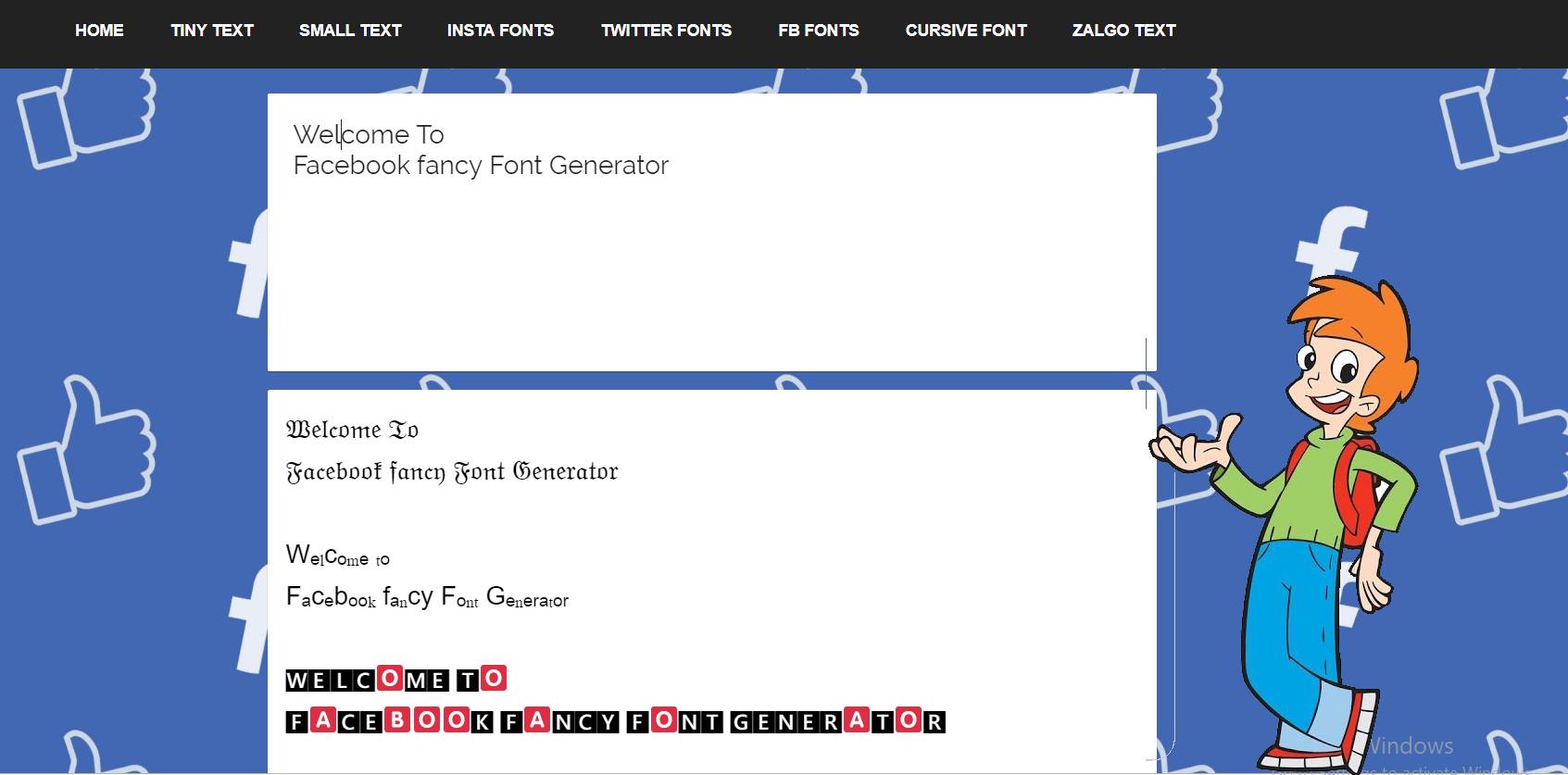
Fancy Font Generator Cursive
Despite the fact that in todays era there are so many different fonts that are used in typing as well as in handwriting to make texts more readable and notable but cursive fonts still carry a strong position in making texts more stylish in formal form as well as in customized.
Fancy font generator cursive. This is a simple online tool that converts regular text into cursive letter symbols. It converts a normal text to different free cool fonts styles such as tattoo fonts calligraphy fonts web script fonts cursive fonts handwriting fonts. Fancy text generator a translator to convert normal text to fancy text which you can copy and paste.
The cursive handwriting style is functional and intended to be used for everyday writing. And another one that generates italic text. For more artistic styles you will want to look at calligraphy or hand lettering.
Fancy text generator is a most advanced online free tool to generate the cool fancy text with various combinations of fancy fonts and texts and used by millions of people around the world. We have to generate hundreds of fonts text. If you dont want the hassle of downloading and installing fonts but just want to use cursive fonts fonts online you should check our text generator tool.
The cool fancy text generator is an amazing online tool to create beautiful fancy text fonts that you can copy and paste anywhere you want. Letters may be joined or unjoined. This cursive text generator generates more than 20 cursive texts that are generated immediately after you enter any text which converts a normal text into different cursive text also generate some other fancy fonts for reference such as handwriting fonts tattoo fonts cursive fonts web script fonts art fonts pretty fonts etc.
Cool fancy text generator font changer is a copy and paste font generator and font changer online that generates cool fonts for instagram and other social network sites. This helps in making letters prominent and stylish. Use the fancy text generator.
The cool fancy text generator tool can create a normal text to different free cool fonts styles tattoo fonts calligraphy web script cursive handwriting old english word fonts. I also made another translator which converts your text into all sorts of fancy styles. Cursive fonts mimic the style of human penmanship where the letters flow together.